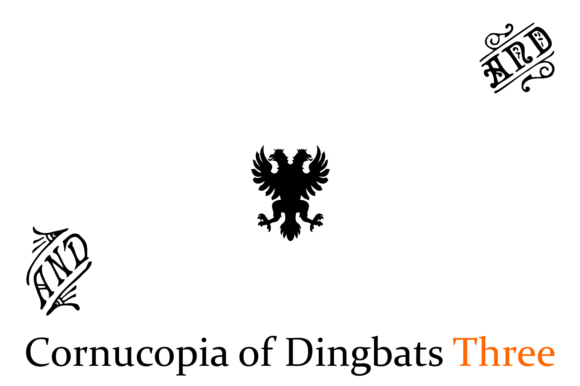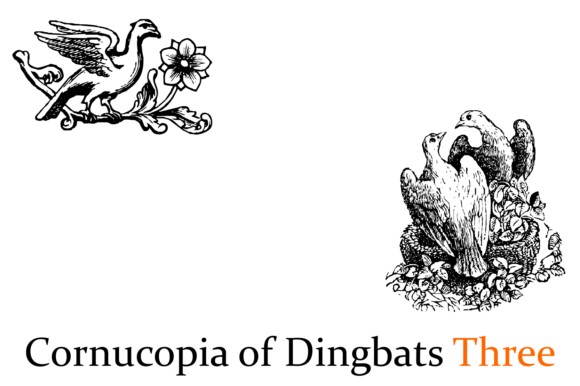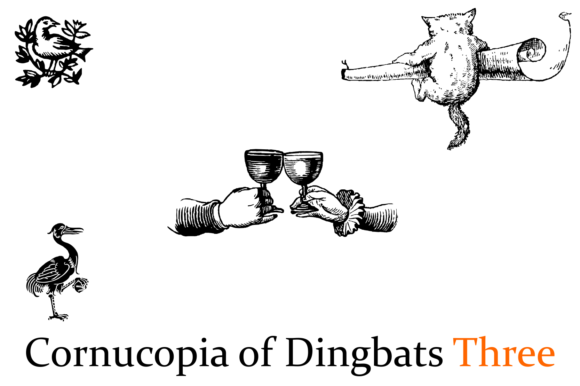
About Cornucopia of Dingbats Three Font
The Cornucopia of Dingbats Three is an exceptional collection that combines both ornaments and dingbats. This versatile dingbat font offers a wide range of elements, from animals and toasting symbols to flowers and decorative ornaments, providing an extensive selection to enhance every design.
With the Cornucopia of Dingbats Three, designers have access to an array of visually appealing and captivating elements that can add a touch of charm and uniqueness to their projects. Whether you’re working on invitations, posters, banners, or any other design endeavor, this dingbat font provides an abundance of options to spice up your compositions.
The inclusion of various categories, such as animals, toasting symbols, flowers, and ornaments, ensures that there is something suitable for every design style and theme. From playful and whimsical designs to elegant and sophisticated compositions, the Cornucopia of Dingbats Three offers a diverse set of elements to cater to your specific needs.
These dingbats can be used as standalone graphics or combined with other design elements to create visually engaging compositions. Whether you’re looking to create focal points, decorative borders, or intricate patterns, this font gives you the flexibility to experiment and customize your designs.
The Cornucopia of Dingbats Three serves as a valuable resource for designers seeking to add a touch of personality and creativity to their work. By incorporating these elements, you can infuse your designs with visual interest, create memorable visuals, and elevate the overall aesthetic appeal.
In summary, the Cornucopia of Dingbats Three is a comprehensive collection that combines ornaments and dingbats, offering a diverse range of elements to enhance your designs. From animals and toasting symbols to flowers and decorative ornaments, this dingbat font provides ample choices to spice up your compositions. With its versatility and wide range of options, this collection is a valuable asset for designers seeking to add charm, uniqueness, and visual interest to their projects.